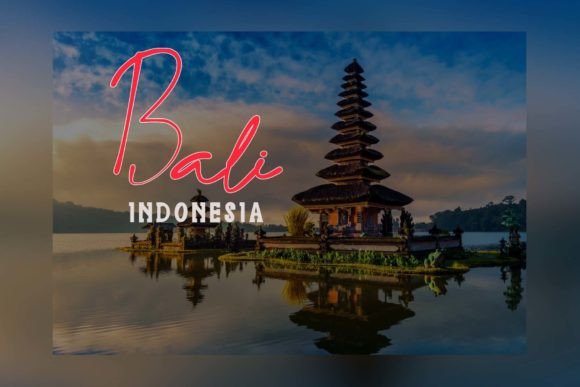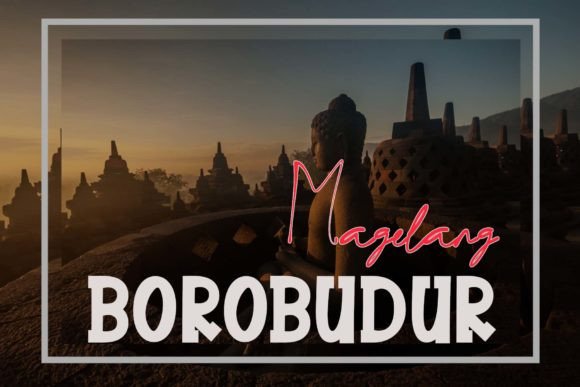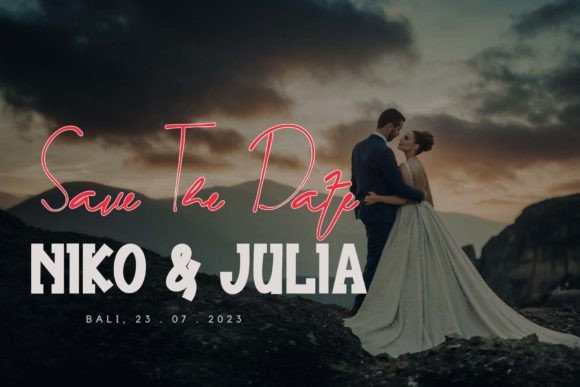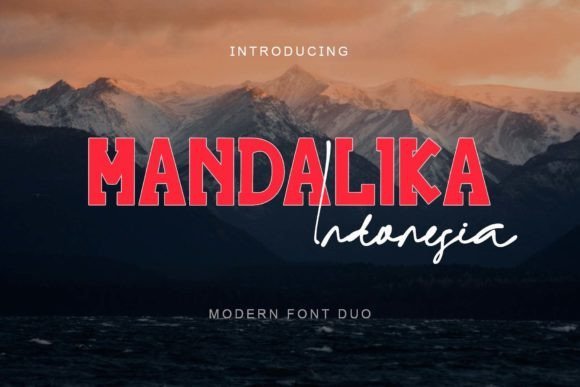
Introduction to Mandalika Indonesia Font
Mandalika Indonesia is an elegant and beautiful duo font.
This font is equipped with uppercase, lowercase, ligatures, numerals, punctuation, and multilingual support Very suitable for business branding, social media, logos, banners, posters, branding, stickers, summer, graduation, and much more.
Key Features of Mandalika Indonesia Font
Mandalika Indonesia Font offers exceptional quality and versatility, making it a valuable addition to your design toolkit. Whether you’re creating for personal projects or commercial use, Mandalika Indonesia Font delivers professional results.